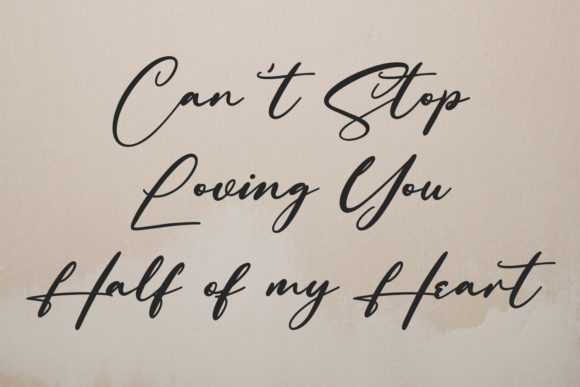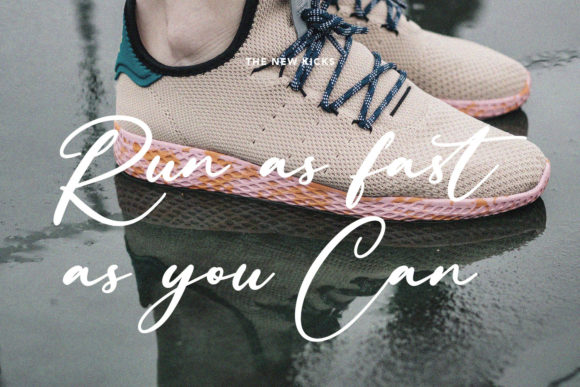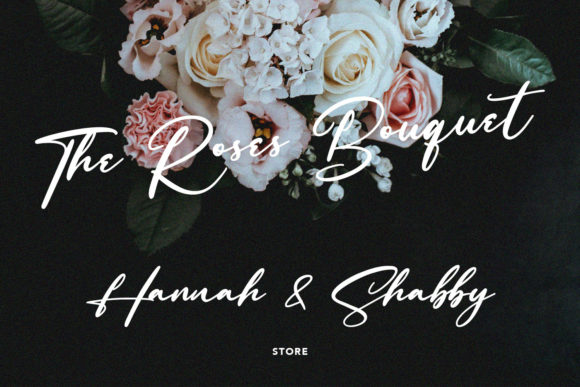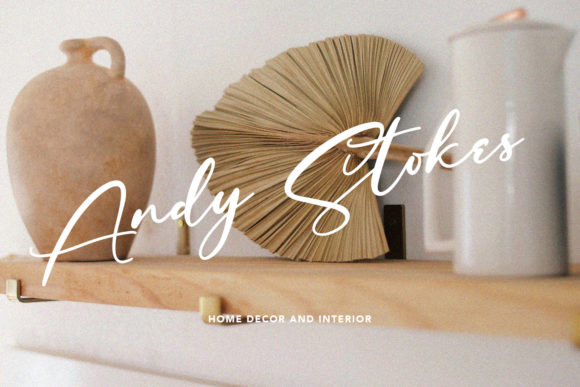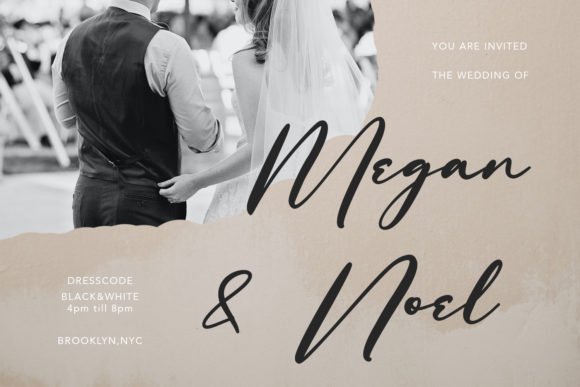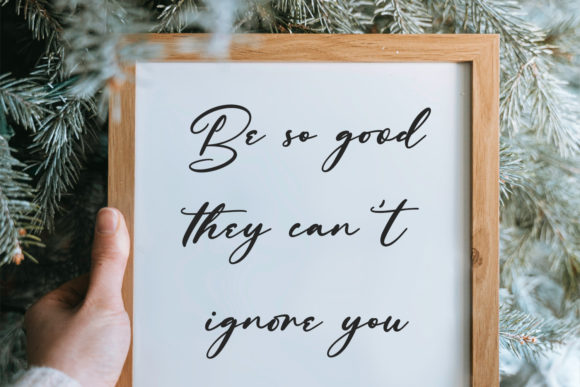
The Elusive Perfect Font: My Encounter with Constatic
Ah, the quest for the perfect font. We’ve all been there – stuck in the midst of a project, pouring over font options, and yet, nothing seems quite right. I recall a particularly frustrating experience while working on a wedding invitation design. My client wanted an elegant, yet modern script font that would make their special day feel truly unforgettable. After hours of searching, I stumbled upon Constatic – an elegant script font that would change the game.
First Impressions: A Love Affair with Constatic
Constatic immediately caught my eye with its impeccable form and contemporary atmosphere. Inspired by timeless classic calligraphy, this font strikes the perfect balance between elegance and readability. It’s not too thin, not too thick – just right. The varied strokes and balanced design make it a versatile choice for a wide range of projects.
- ✨ Elegant and sophisticated design
- 💫 Beautifully crafted OpenType features and glyphs
- 🎨 Versatile and adaptable to various design styles
- 🤔 Some users may find the font a tad too ‘script-heavy’ for certain projects
- ⚠️ Limited availability of condensed or extended versions
The Story Behind Constatic: Designer Inspiration
Constatic was born from a passion for classic calligraphy and a desire to create a modern, elegant script font that would meet the needs of contemporary designers. The designer, driven by a love for beautiful typography, aimed to craft a font that would be both timeless and versatile. Through careful attention to detail and a deep understanding of typographic principles, Constatic was created – a font that embodies the perfect blend of elegance and readability.
Q: What makes Constatic suitable for elegant designs?
A: Constatic’s classic calligraphy inspiration, balanced design, and beautiful OpenType features make it an excellent choice for elegant designs, such as wedding invitations, luxury branding, or high-end events.
Q: Can I use Constatic for body text?
A: While Constatic is highly legible, it’s primarily designed for display purposes. For body text, consider using a font with a more straightforward design and optimized readability.
Q: Does Constatic support multiple languages?
A: Yes, Constatic supports a wide range of languages, including Western European and English.